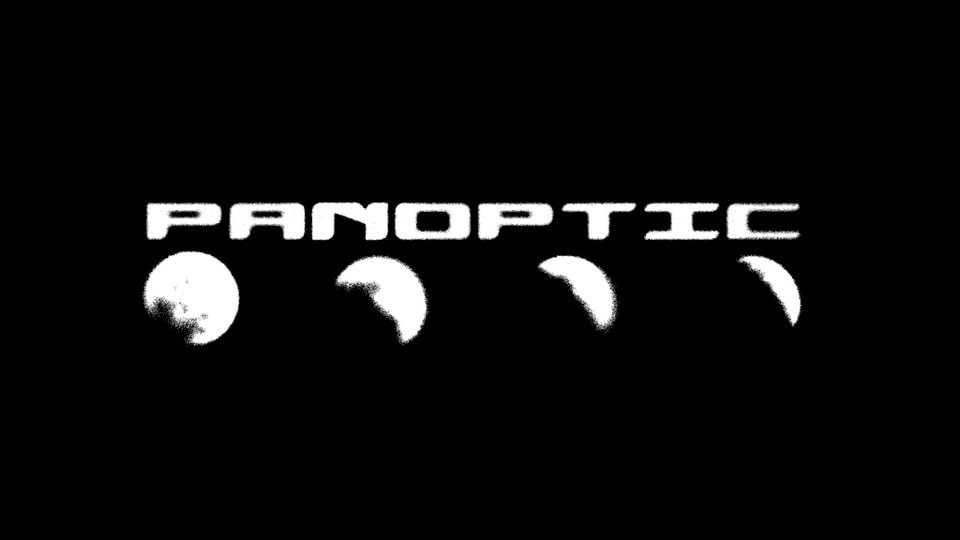
Download Panoptic Monospace font, a display typeface that encapsulates the essence of the future with its bold, monospaced design. This font is designed for projects that require a sense of advanced technology and contemporary style.